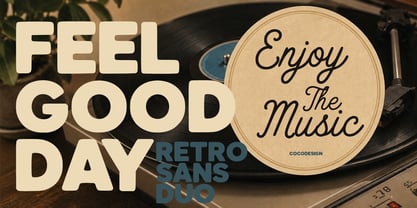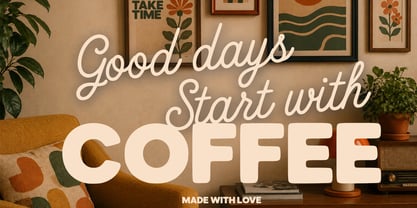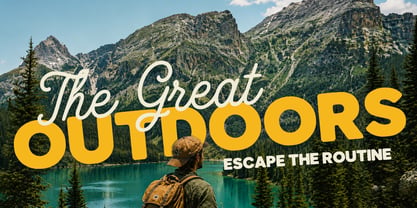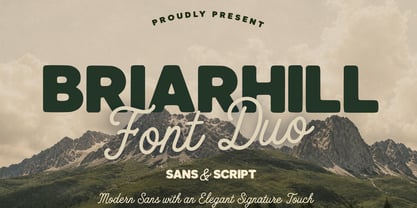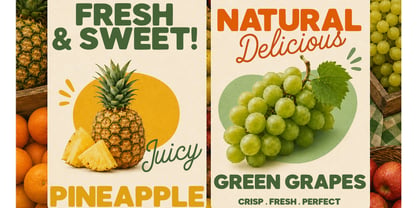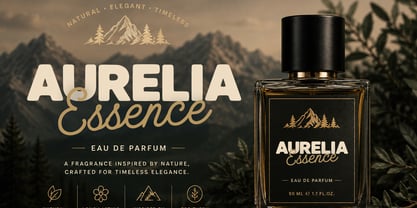
Briarhill
The Briarhill Font Family was designed by Muhammad Zaini and published by Cocodesign. Briarhill contains 2 styles and family package options. More about this family
Briarhill Font Duo is a beautifully crafted font combination that merges a bold geometric sans serif with a flowing signature script. This versatile pairing is designed to create eye-catching typography, striking the perfect balance between strength and elegance. The bold sans serif features clean, modern letterforms that exude confidence, while the handwritten script introduces warmth, sophistication, and a natural signature feel. Together, they produce stunning typography ideal for branding, web design, editorial projects, and creative design endeavors. Whether used individually or in tandem, Briarhill simplifies the process of crafting professional, stylish, and memorable designs.